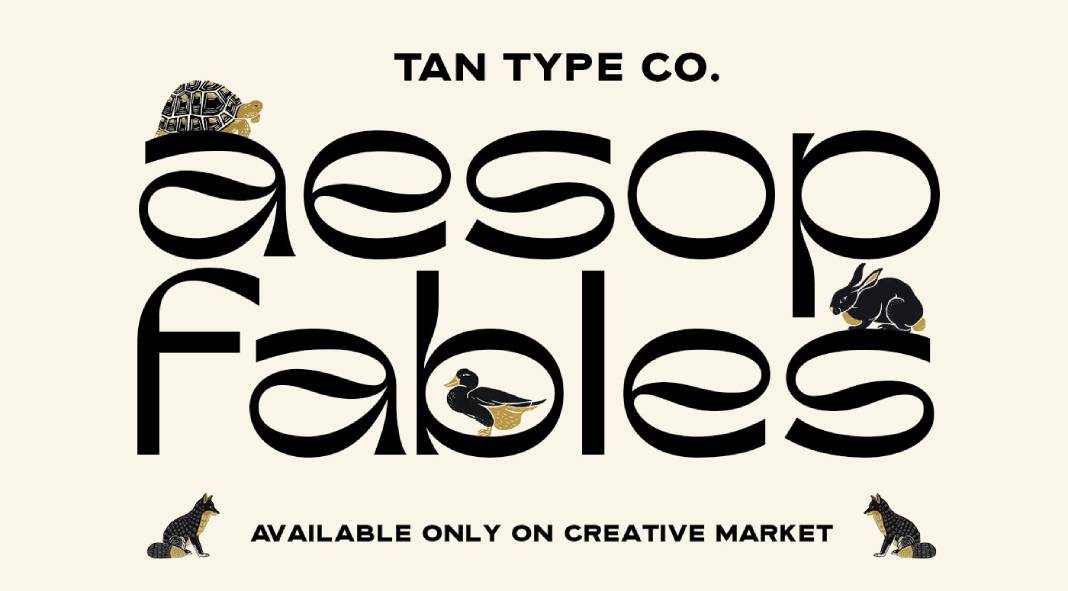
Download the TAN AESOP font, a reverse contrast typeface with a modern and unique look.
TanType is a foundry known for unique, sometimes quirky but always high-quality typefaces, and the TAN AESOP is no exception. It’s a reverse contrast typeface that provides a modern and clean look. It is perfect for a wide range of graphic design projects no matter print or web. Just click on the following link to learn more about the TAN AESOP font.